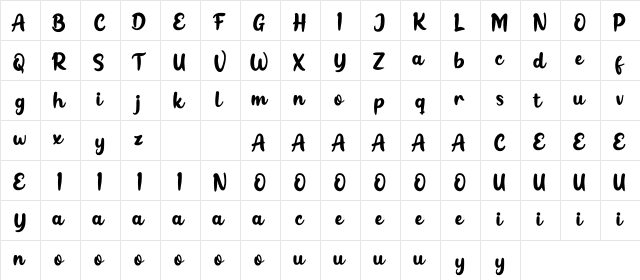
Inner Vintage Personal Use
Design Context for Inner Vintage Typeface
Inner Vintage has the warm character of retro typography — evoking diners, record sleeves, and the golden age of print advertising.
Perfect for vintage-inspired branding, retro packaging, nostalgia campaigns, and period-accurate editorial design.
Font Pairing: Combine Inner Vintage with a simple slab or neutral sans — period-accurate companions reinforce the vintage feel without competing for attention.
Pro Tip: Use Inner Vintage for headlines and pull quotes rather than body copy — its personality is best appreciated in short, focused bursts.